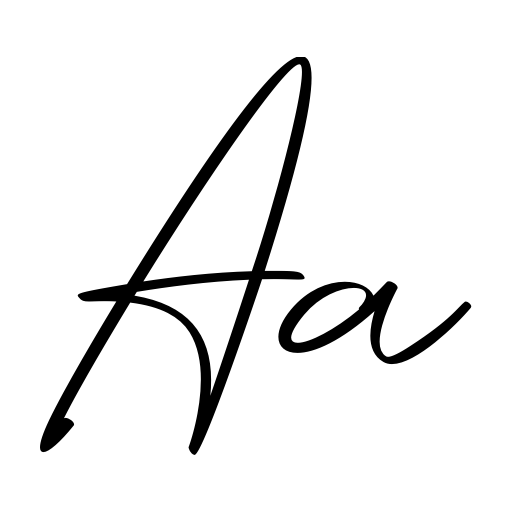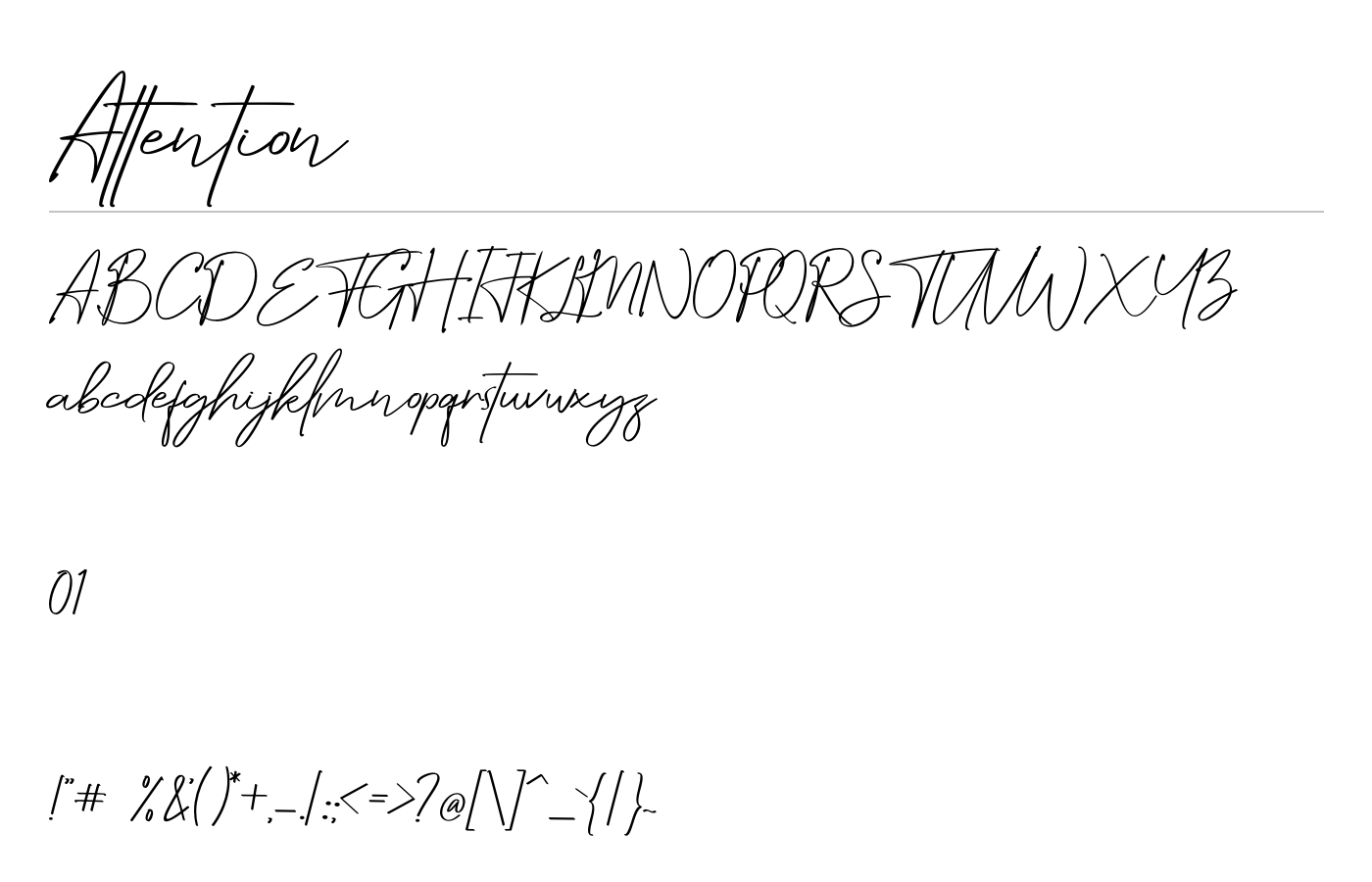
Attention Font is a slender, elegant script typeface characterized by its tall, airy letterforms and delicate, flowing strokes. With a handwritten, slightly playful style, it works beautifully for branding, invitations, and creative designs that seek a personal and graceful touch. Its light, stylish look makes it ideal for headlines and decorative uses where a modern, sophisticated feel is desired.
Attention Font
About Attention Font
| Font family | Attention Font |
| Designer | Sarwo Edhi Prayitno |
| Trademark | Haksen Studio |